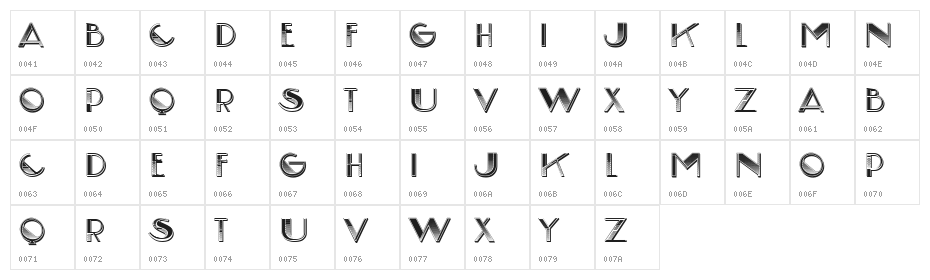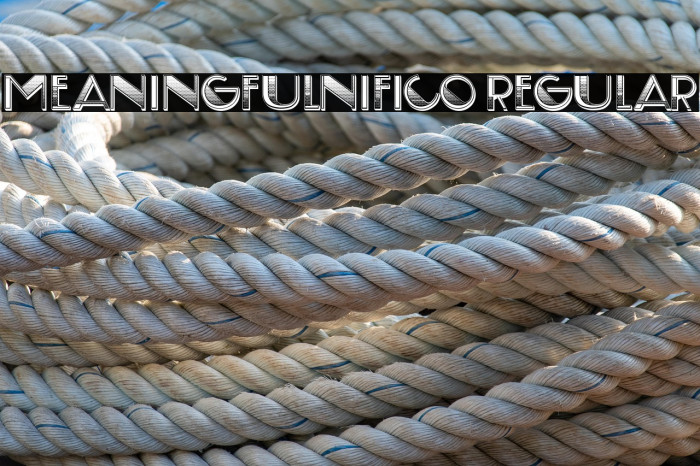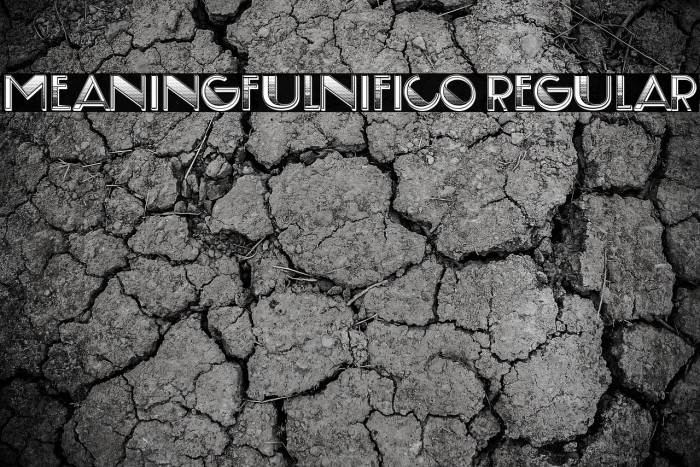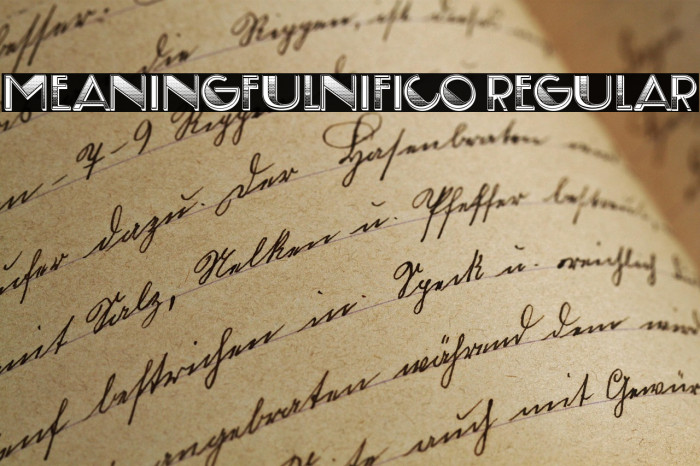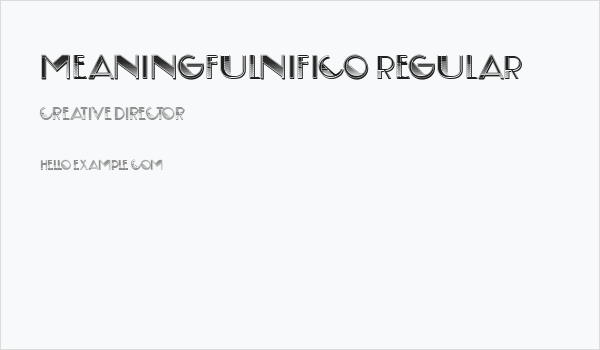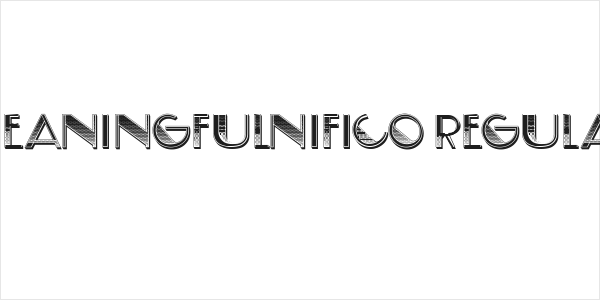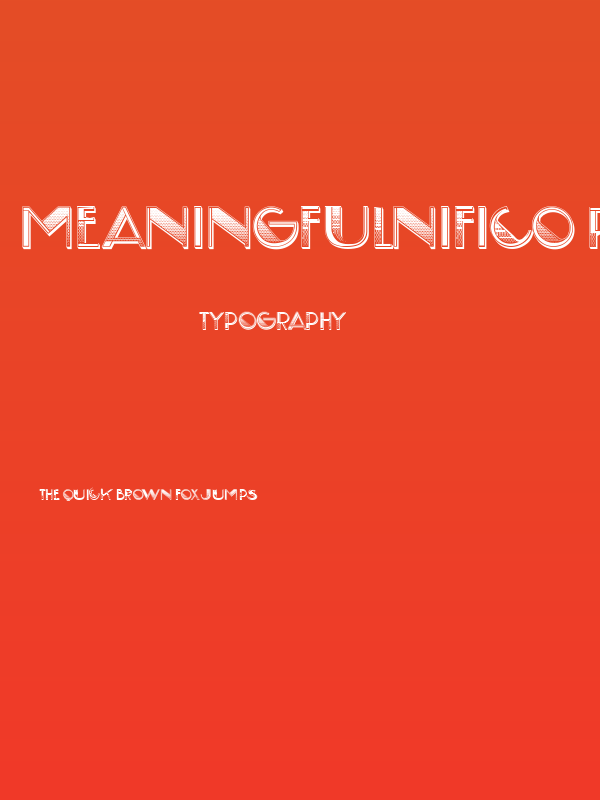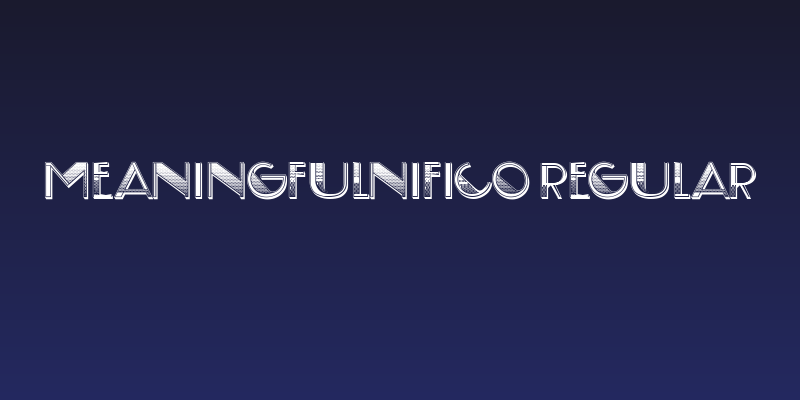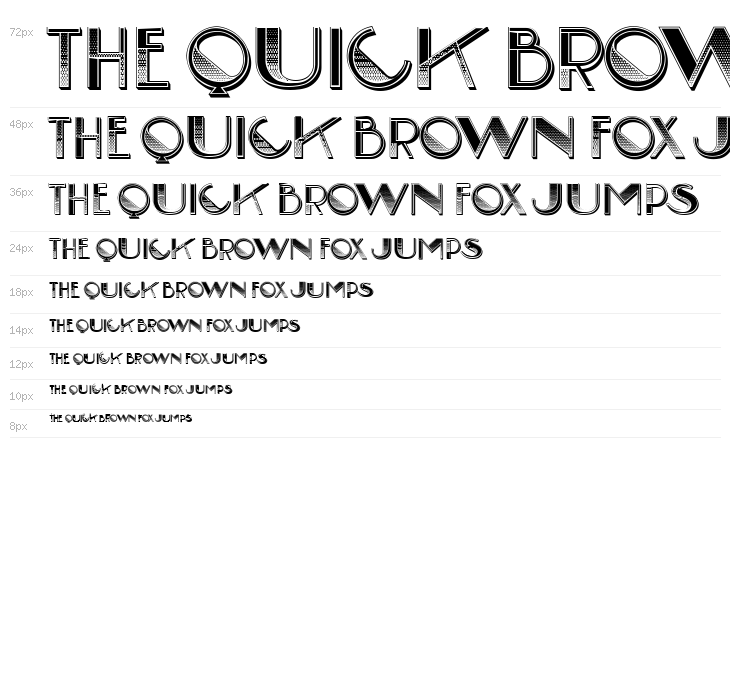
Meaningfulnifico Regular Font
Meaningfulnifico Regular Description
This font features a bold and decorative style with a unique blend of geometric shapes and intricate patterns within each character. The uppercase letters are designed with a combination of solid and dotted textures, creating a striking visual effect. The font's structure is angular and sharp, with consistent line thickness that adds to its bold appearance. The characters are well-spaced, ensuring readability while maintaining an artistic flair. This font is ideal for projects that require a standout, artistic touch, such as posters, logos, or branding materials.
Proposed ProjectsIdeal for posters, logos, branding materials, and artistic projects.